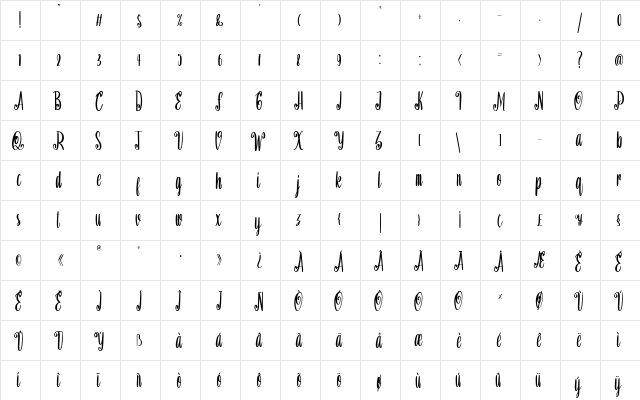
Megalhaes Regular
| Foundry | Typotopia |
| Designer | Typotopia |
Design Context for Megalhaes Typeface
Megalhaes is a composed and adaptable typeface that performs quietly and consistently across a wide range of design contexts.